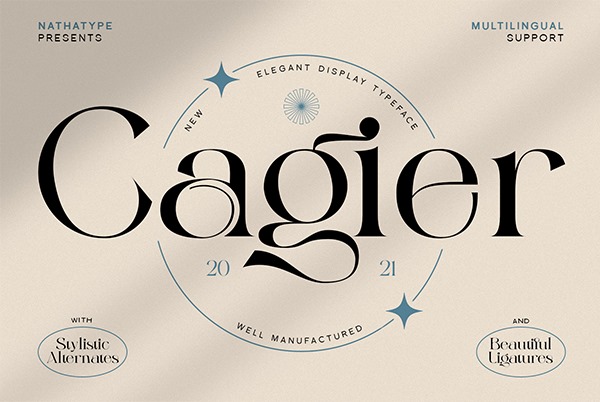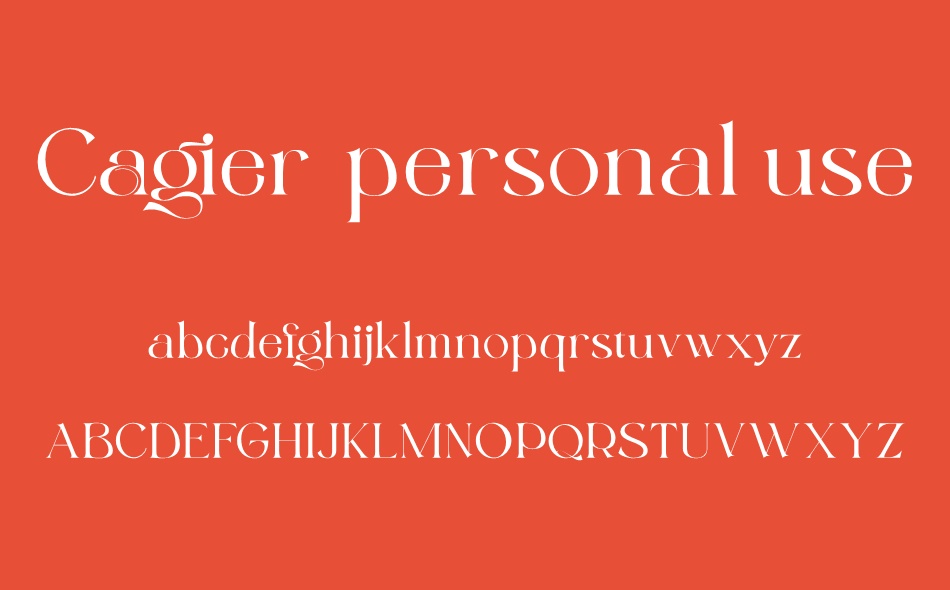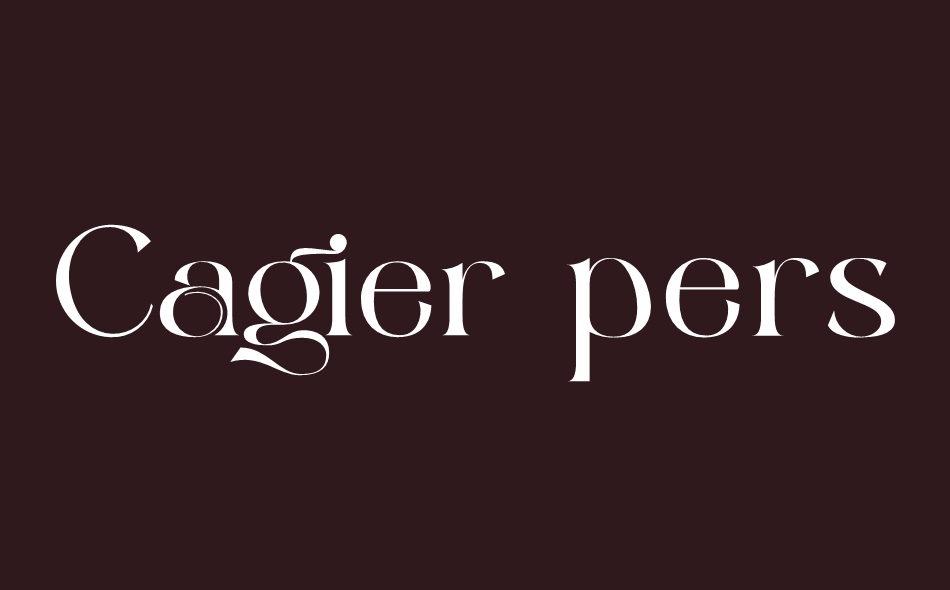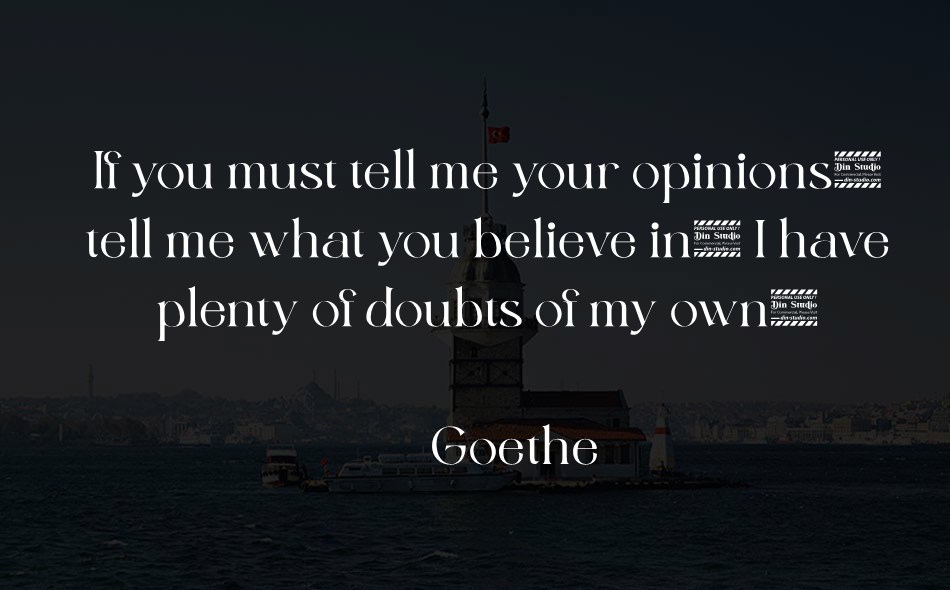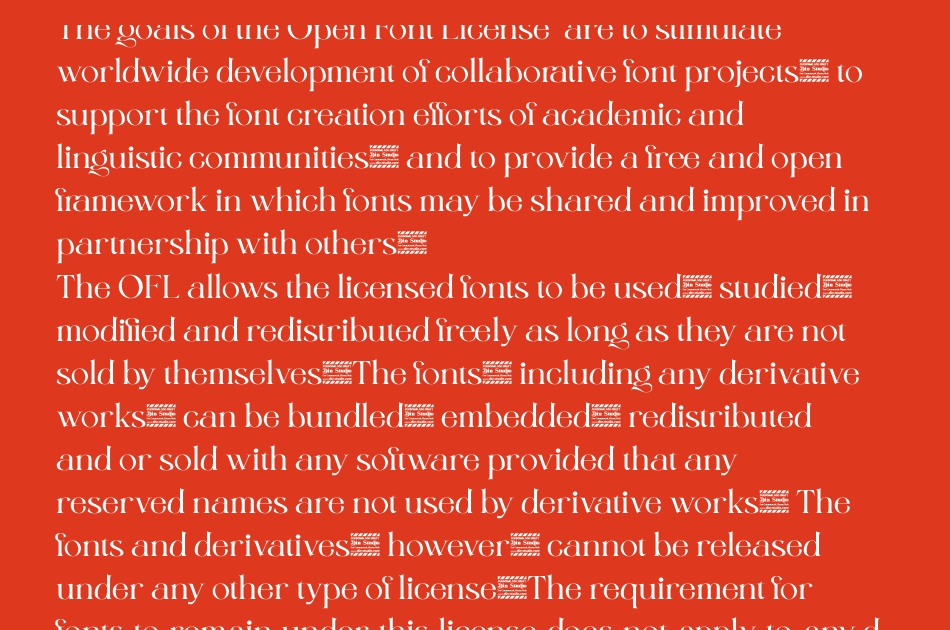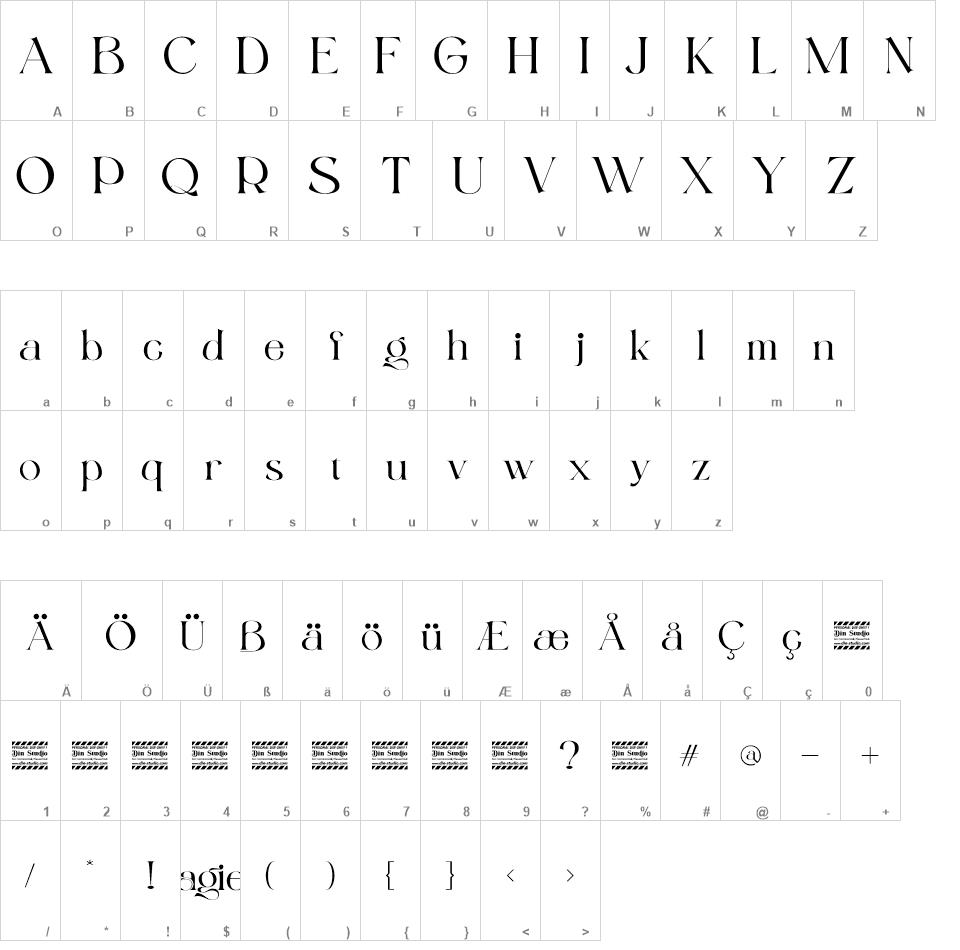
Cagier font
Cagier is a display font in a luxurious, classy, and timeless style. Inspired from classic and vintage flair combine with recently trend style making this font the best choice to whatever your design is. Cagier is mainly intent for logo, headings, branding, magazine, cover album, book cover, movie, apparel design, quotes, invitations, flyer, poster, greeting cards, product packaging, printed quotes, etc.
Cagier-A Display Font
Cagier is a display font in a luxurious, classy, and timeless style. Inspired from classic and vintage flair combine
with recently trend style making this font the best choice to whatever your design is. Cagier is mainly intent for
logo, headings, branding, magazine, cover album, book cover, movie, apparel design, quotes, invitations, flyer,
poster, greeting cards, product packaging, printed quotes, etc.
Features:
• Alternates
• Ligatures
• Stylistic Set
• Swashes
• Numerals and Punctuation